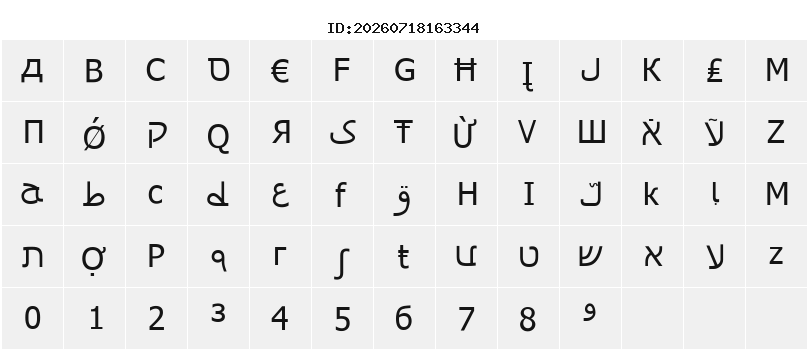
Cyrillatina Preview
About Cyrillatina.ttf
Cyrillatina.ttf is a modern, elegant sans-serif font designed for ultimate readability and visual harmony. Perfect for branding, headlines, web design, and print materials.